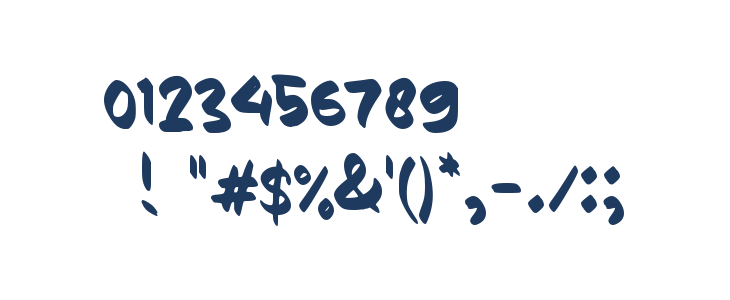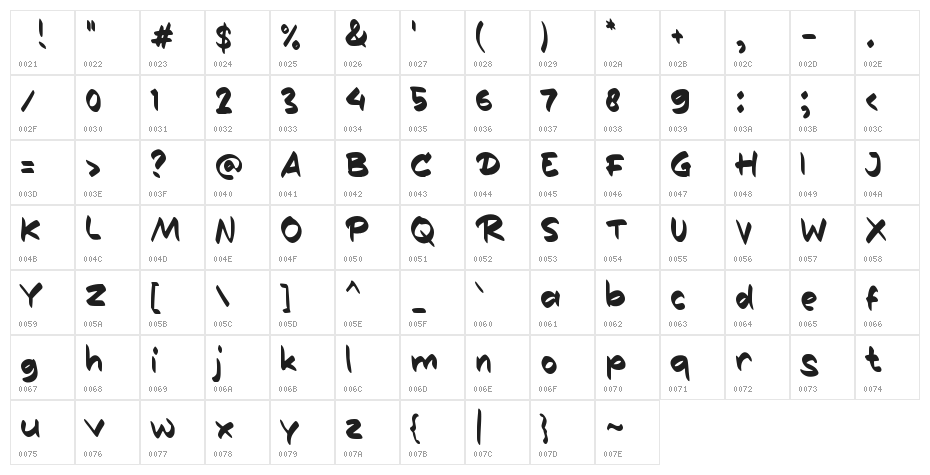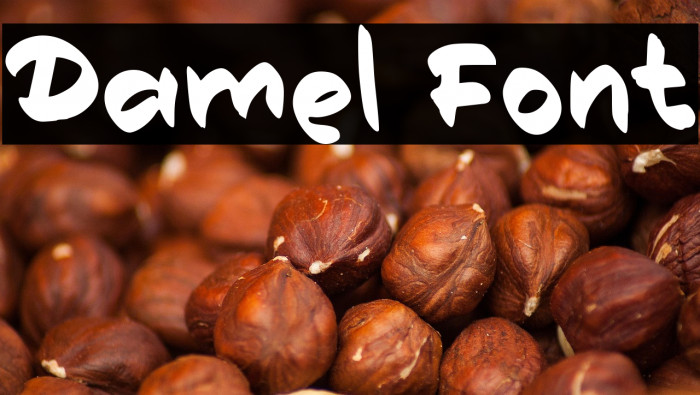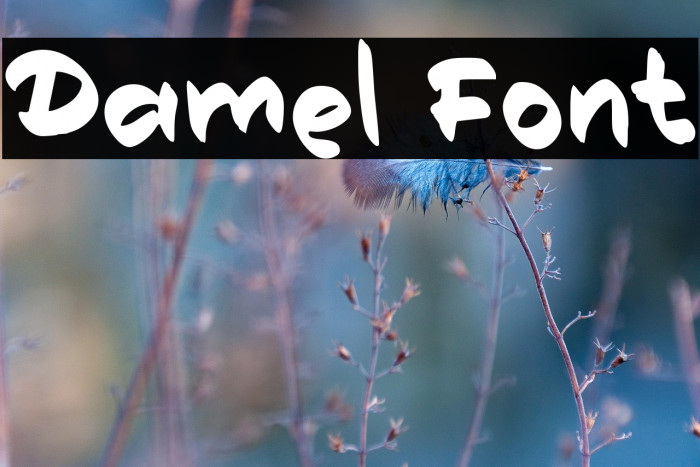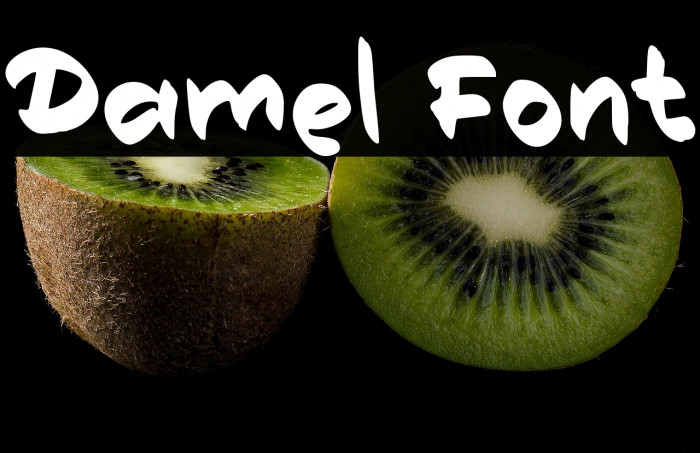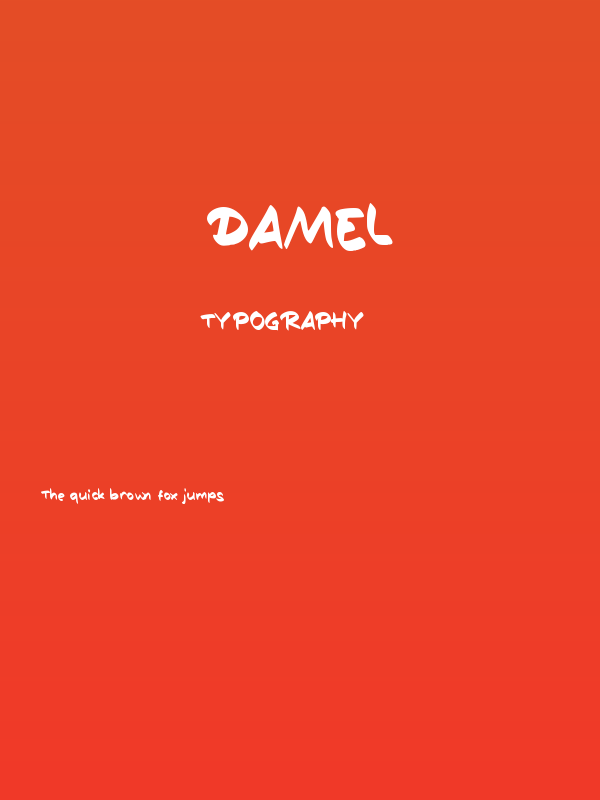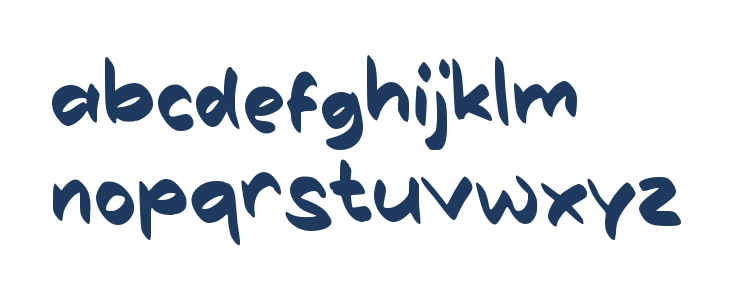
Damel Font
Damel Description
This font features a bold, playful style with a handwritten appearance. The characters are rounded and slightly irregular, giving them a casual and friendly vibe. The strokes are thick and consistent, contributing to a strong visual impact. The uppercase and lowercase letters maintain a cohesive look, while the numbers and special characters follow the same design principles, ensuring uniformity across all glyphs. This font is ideal for projects that require a touch of personality and informality, such as children's books, playful branding, or casual invitations.
| Overall Style | Playful, Casual |
| Proposed Projects | Children's books, playful branding, casual invitations, posters. |